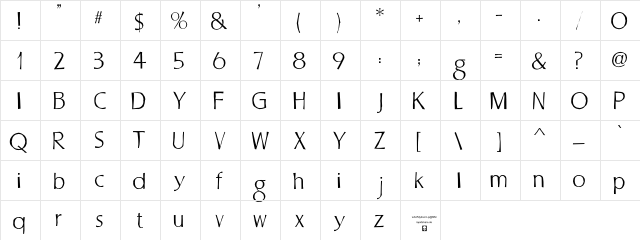
LHF Stevens Percepta Slim Regular
| Foundry | Arthur Vanson for Letterhead Fonts |
| Designer | Arthur Vanson |
Design Context for LHF Stevens Percepta Slim Typeface
LHF Stevens Percepta Slim takes a measured approach to typography — its balanced proportions and neutral character make it a reliable workhorse for both digital and print work.